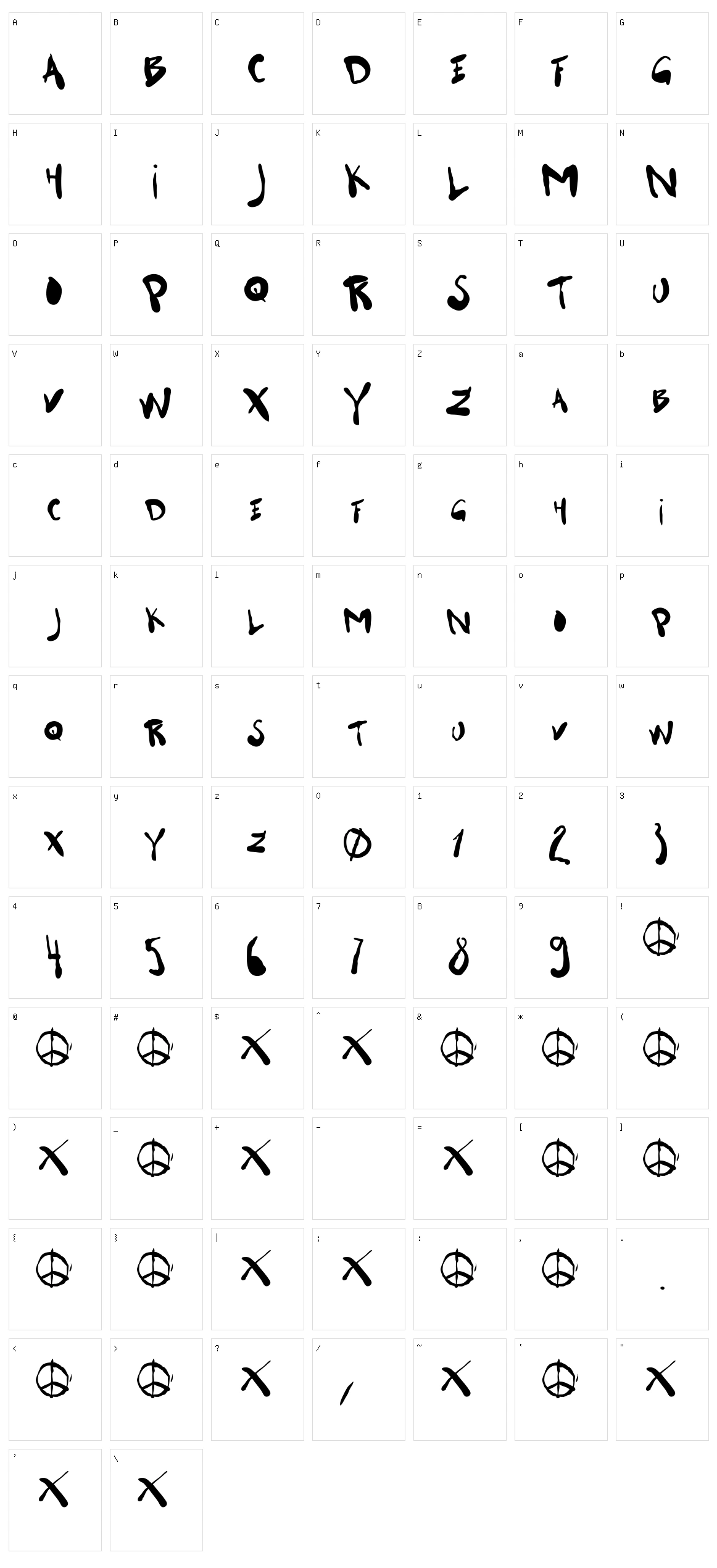
The free font Garter Max is carefully designed by Anak Bapet, showcasing a thoughtful balance of creativity and usability and falls under the Script font style. When you download the ZIP file, it contains only 18.81 KB of font files, making it lightweight and quick to download. Please review the license details below to understand permitted usage and distribution rights. If license information is not available, we recommend using this font for personal projects only or contacting the author directly for commercial usage permissions.